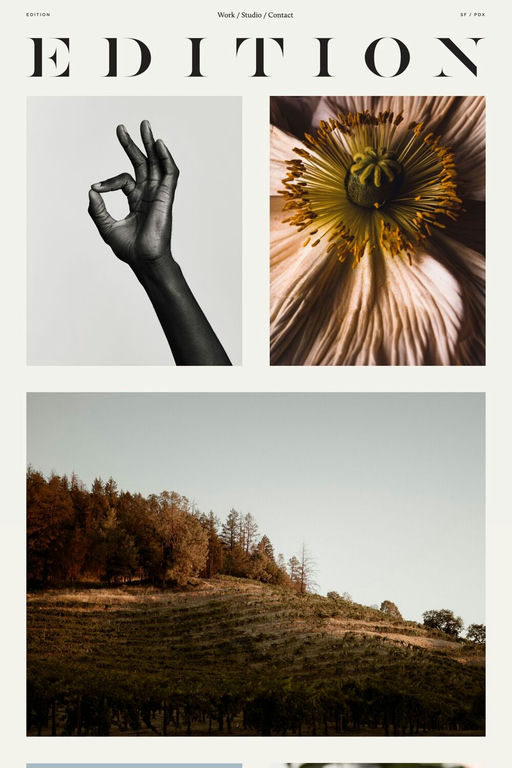
Calluna is a serif typeface from exljbris.
Calluna is chunky and assertive, with exaggerated serifs. The precise lines of this serif make it a modern alternative to other old-style types. Calluna combines the charm of classic design with the clean-cut appeal of modernism.